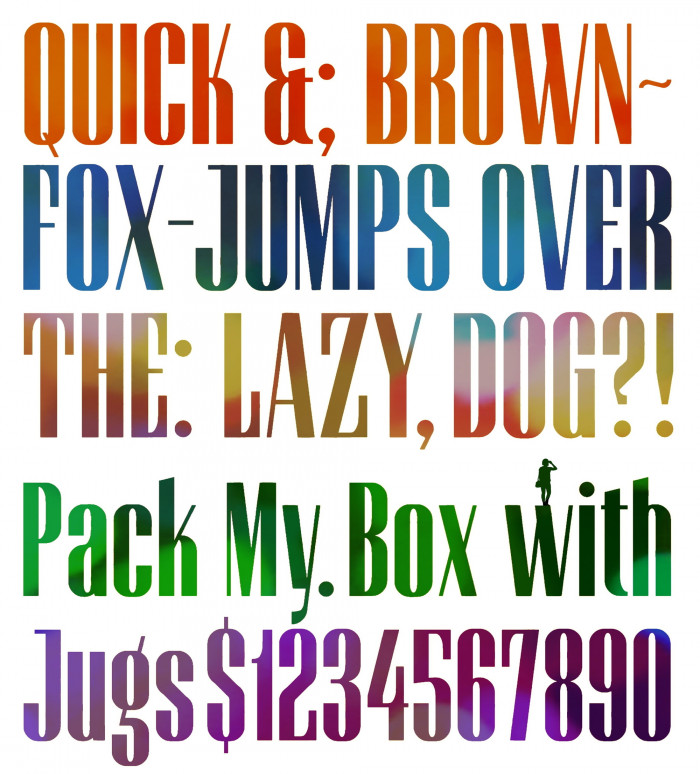
Ligatures "ff" and "tt" are at the "fi" and "fl" glyphs.
Working on how to correct certain difficulties about the "color" of the font. Be friendly with it, please. Thanks.
Excellent work, the figures in the samples are a nice touch!
If by color you mean the balance of white inside and between letters and black, then, I can note that you can only slightly correct the numbers. In the picture I showed what I did to reduce the amount of white inside these numbers. Otherwise, I think this is your next perfect font with great attention to detail, with a retro taste,
because contrast fonts are used less and less.
@DmitriySychiov: Thank you very much. Yes, when I was talking about "color" I was referring to the general tone of the font. I'm trying to compensate for too dark "gray" areas in letter groups, but with uncertain results. I take your suggestions into study.
Congratulations! FontStruct Staff have deemed your FontStruction worthy of special mention. “zilhouette eYe/FS” is now a Top Pick.
Congratulations, the samples display the font's charms excellently~
This is so sophisticated. Lots of beautiful things happening all over the different glyphs. Like the way the left side of the 5 dips down or the inward bent of thr { or the cutoff of the y or the curve of the connection of the ,
@thalamic: You make me blush with your kind words and appreciation of small details, dear Master. This was a basically simple font, so I thought that kind of additions would be good. Thank you very much.